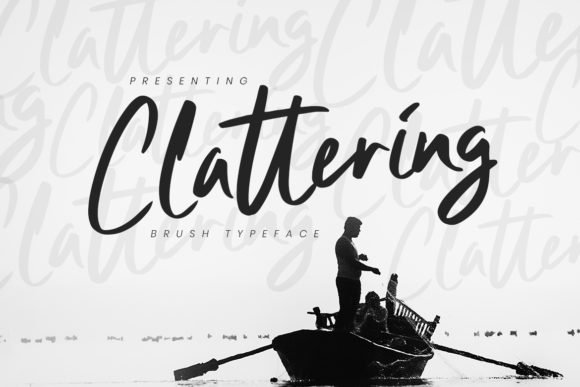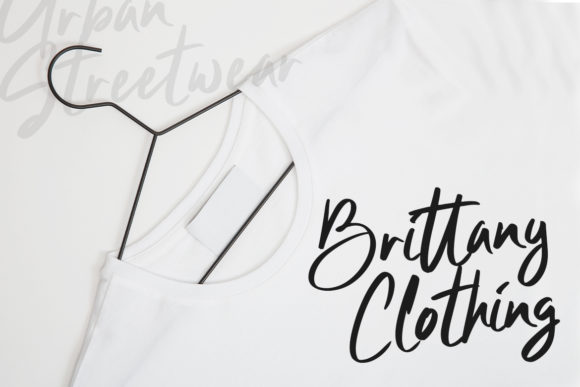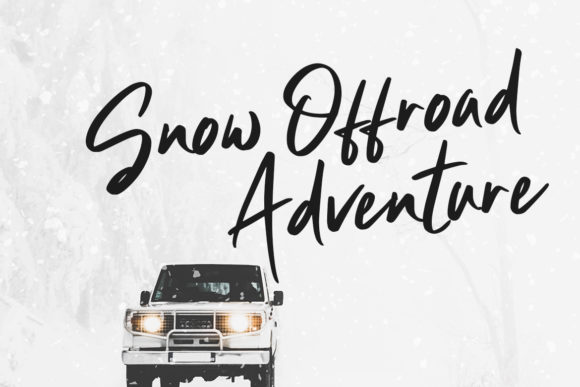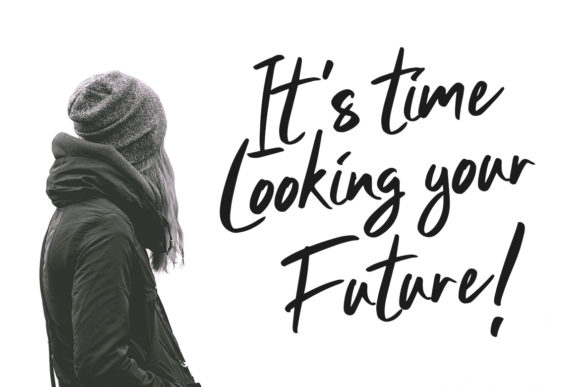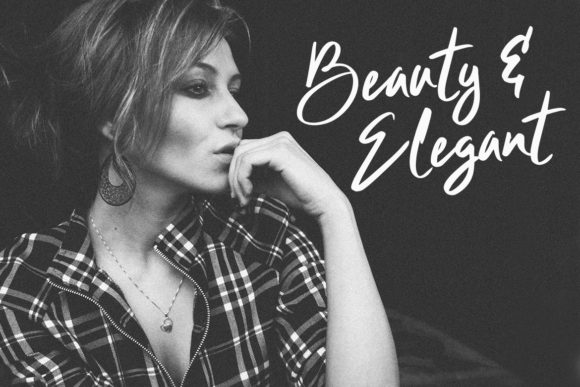
When Creativity Strikes, The Right Font Can Make All the Difference
Have you ever been in the middle of a design project, staring at a blank page, trying to find the perfect font to bring your vision to life? That’s exactly where I was when I stumbled upon the Clattering Font. This handmade brush font with its free-flowing and confident bold style between thick and thin curves instantly caught my attention.
The Clattering Font is designed to add a touch of personality and whimsy to any design project. Its unique blend of thick and thin curves makes it perfect for adding emphasis and visual interest to headlines, titles, and even body text. For designers, this font is a valuable addition to their toolkit, offering a fresh and creative way to express themselves.
Key Features of Clattering Font
- Font Family: Clattering Font is a unique display font designed for headings and titles.
- Character Count: The font contains over 300 characters, including uppercase and lowercase letters, numbers, and punctuation marks.
- Size: The font size ranges from 8pt to 72pt, making it suitable for various design applications.
- Resolution: Optimized for high-resolution displays, with clear and crisp rendering at resolutions up to 300 DPI.
- Unique Characteristics: Clattering Font features a distressed, vintage aesthetic with irregular letterforms and subtle texture, adding a touch of nostalgia and elegance to designs.
Review of Clattering Font
Overall, I’d say Clattering Font has some great qualities that make it a decent choice for certain projects, but it’s not without its limitations.
- The font’s unique energy and playfulness really shine through, making it perfect for creative or whimsical designs.
- The bold weight is particularly striking, and it adds a lot of visual interest to headings and titles.
- Clattering Font’s quirky charm is sure to stand out in a crowded design landscape.
- The font’s readability can be a bit of a challenge, especially in smaller sizes or for body text. It’s best to stick to headings and titles.
- Some characters, like the ‘g’ and ‘p’, can be a bit difficult to distinguish from each other, which may lead to errors in certain contexts.
- The font’s irregularities can be distracting in certain designs, so be sure to use it thoughtfully.
Overall, I think Clattering Font is a great choice for projects that need a bit of whimsy and flair, but it may not be the best fit for more formal or serious designs.
Tip: Use Clattering Font for headings or titles to add a touch of whimsy to your design.
Tip: Use Clattering Font for logos or branding elements to add a unique touch.
Tip: Use Clattering Font for headings or titles to add a touch of personality to your presentation or document.
Clattering Font is perfect for:
- Whimsical or playful designs.
- Branding or logo creation.
- Adding a touch of personality to presentations or documents.
Alternatives to Clattering Font
Playfair Display is a luxurious, high-end serif font ideal for headings and titles. Its elegant and refined design makes it perfect for formal events, weddings, and high-end branding.
Comparison: While Clattering Font has a more casual and playful feel, Playfair Display is more formal and sophisticated. Playfair Display is better suited for situations where you want to convey elegance and refinement.
Great Vibes is a modern, elegant script font perfect for titles and headings. Its fluid and connected strokes create a sense of movement and energy.
Comparison: Great Vibes has a more modern and sleek feel compared to Clattering Font’s playful and casual vibe. Great Vibes is better suited for situations where you want to convey a sense of movement and energy.
Pacifico is a beautiful, elegant script font perfect for titles and headings. Its flowing strokes and classic design make it perfect for beach-themed or coastal branding.
Comparison: Pacifico has a more relaxed and beachy feel compared to Clattering Font’s playful and casual vibe. Pacifico is better suited for situations where you want to convey a sense of relaxation and tranquility.
Merriweather is a classic, elegant serif font perfect for body text and headings. Its traditional design and sturdy feel make it perfect for academic or literary branding.